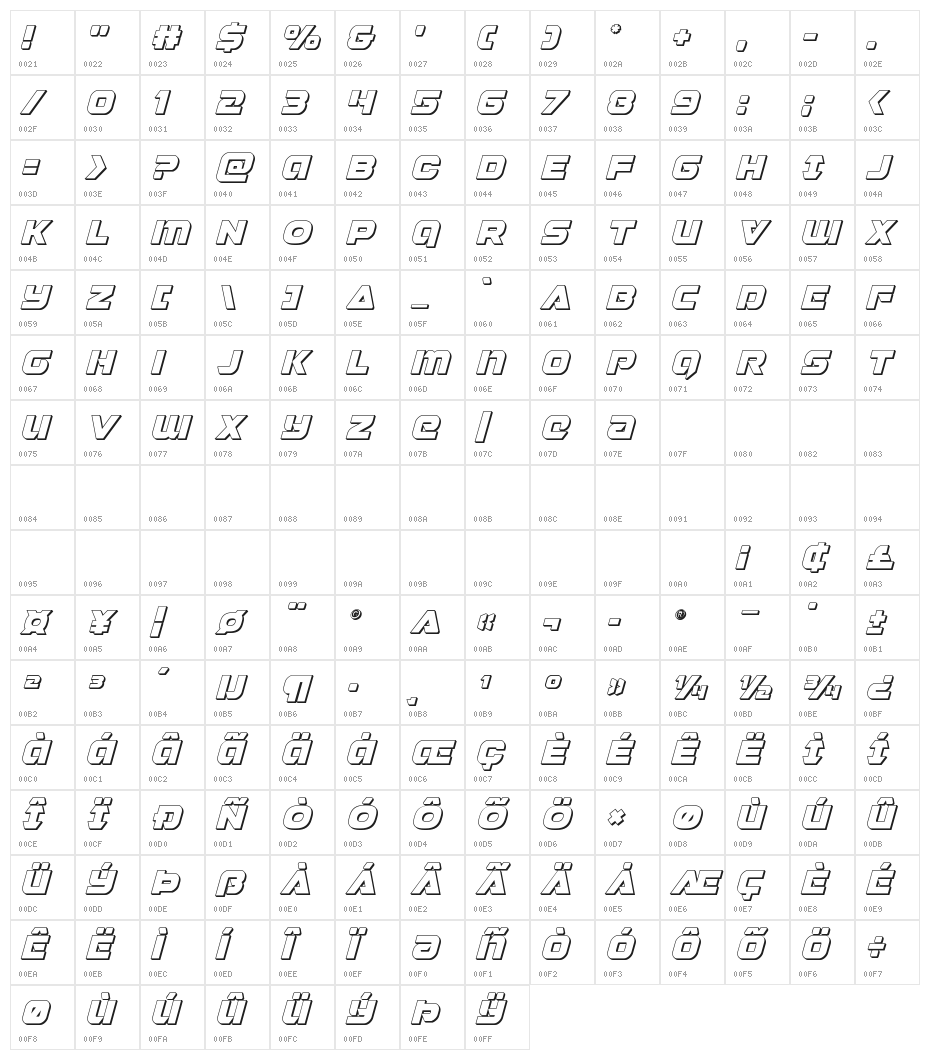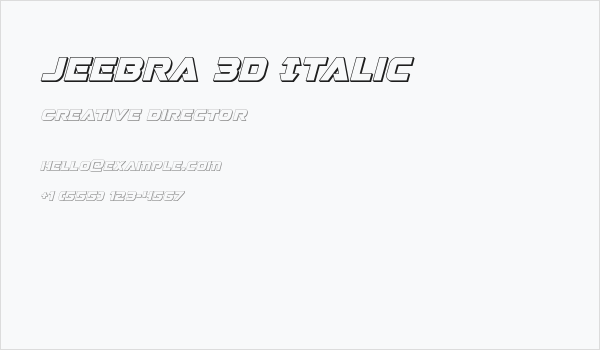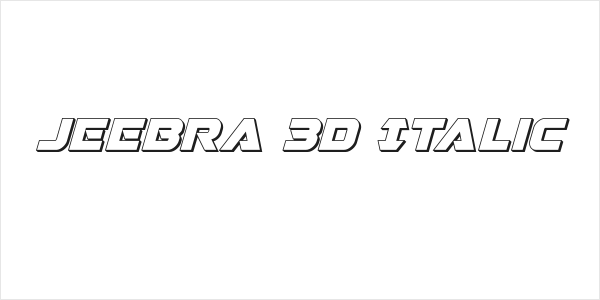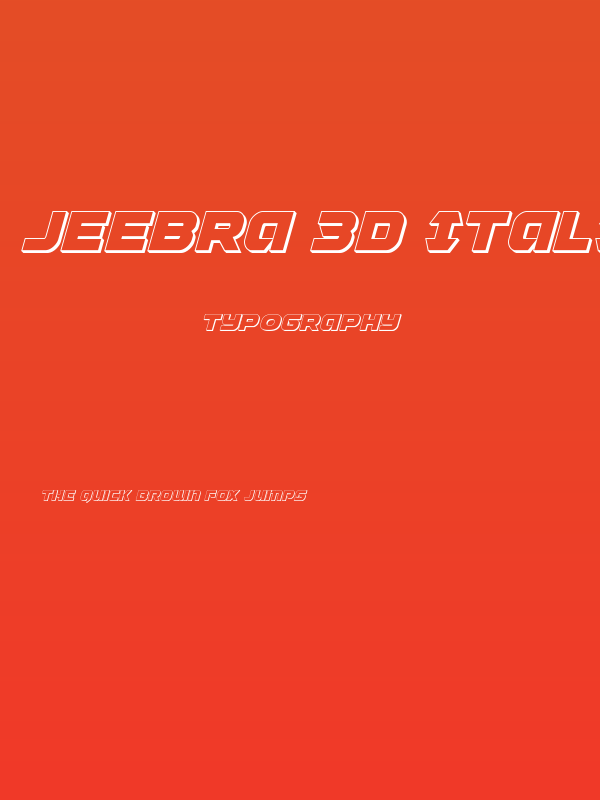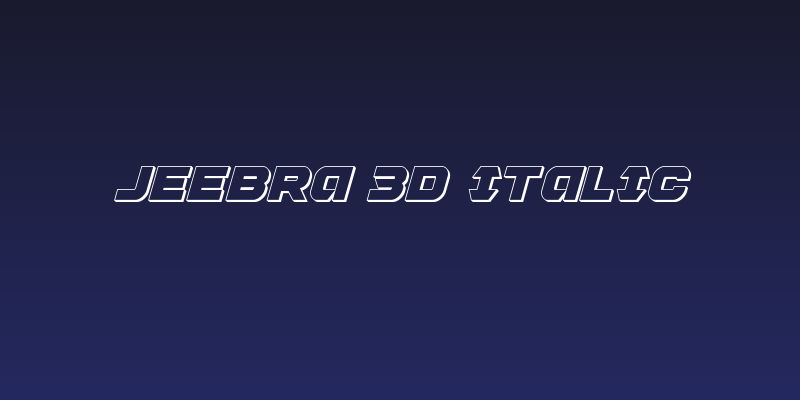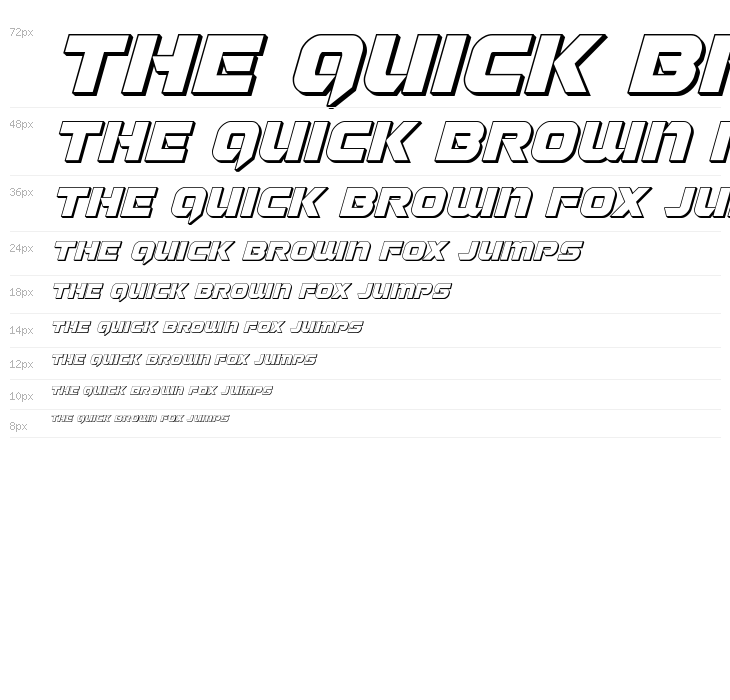
Jeebra 3D Italic Font
Jeebra 3D Italic Description
This font features a bold, three-dimensional appearance with a distinct italic slant, giving it a dynamic and futuristic feel. The characters are outlined, creating a hollow effect that enhances the 3D illusion. The geometric shapes and sharp angles contribute to its modern and edgy style. The uppercase and lowercase letters maintain consistent proportions, while the numerals and special characters align seamlessly with the overall design. This font's unique structure makes it stand out, ideal for projects that require a bold statement.
| Overall Style | Futuristic, Dynamic |
| Proposed Projects | Ideal for video game titles, sci-fi movie posters, tech branding, and futuristic event flyers. |